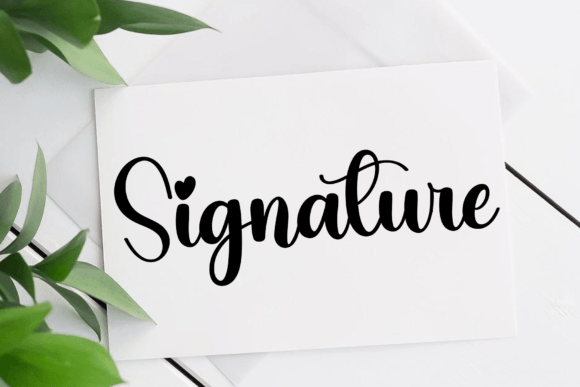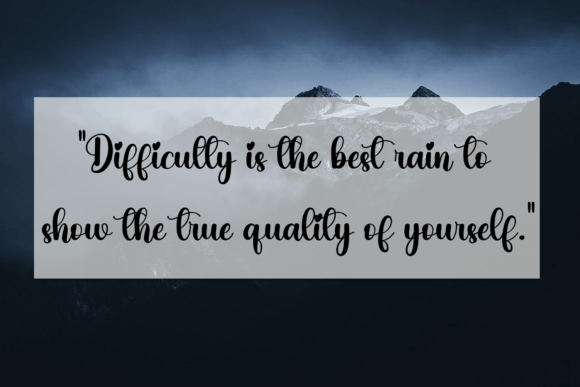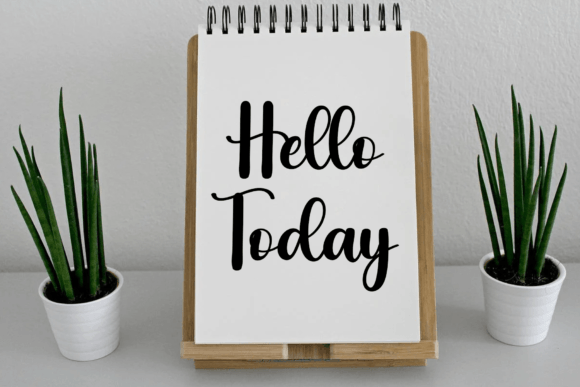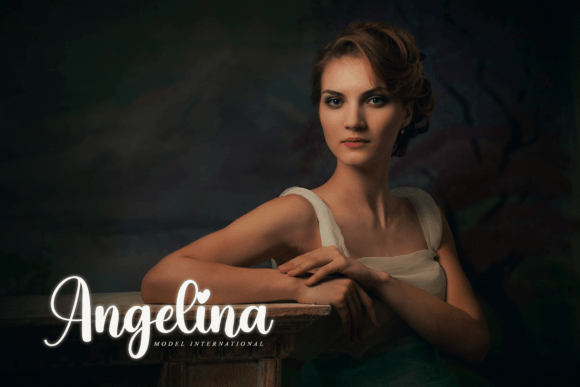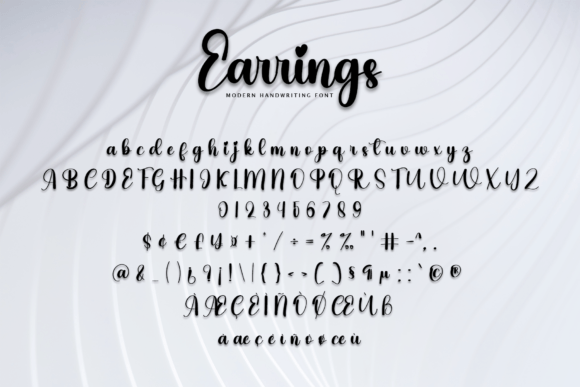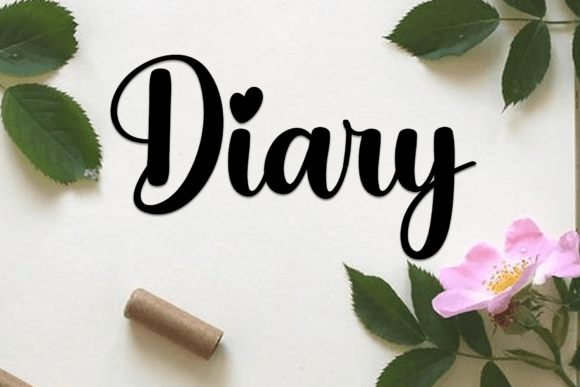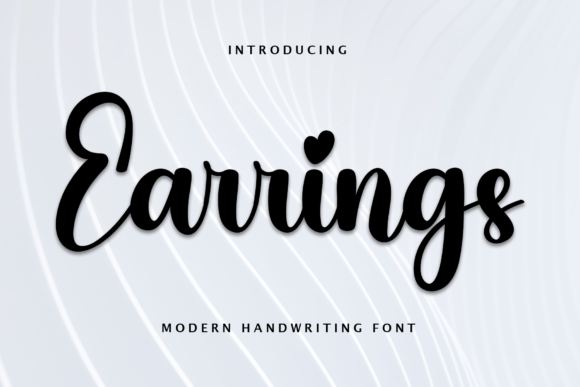
Earrings Font: A Unique and Versatile Handwritten Font for Creative Projects
Are you a designer or crafter looking for a font that can add a touch of elegance and sophistication to your creative projects? Look no further than Earrings Font, a unique and versatile handwritten font that is perfect for a wide range of applications. In this article, we’ll take a closer look at Earrings Font, its features, and how you can use it to elevate your designs.
What is Earrings Font?
Earrings Font is a carefully crafted, round lettered handwritten font that is designed to produce high-quality results. Its unique and elegant design makes it perfect for use in titles, invitations, letters, and many other types of products. Whether you’re working on a branding project, creating wedding stationery, or designing a craft project, Earrings Font is a great choice.
Features of Earrings Font
Earrings Font has several features that make it stand out from other fonts. Some of its key features include:
- Unique and elegant design: Earrings Font has a distinctive, hand-drawn look that is both elegant and sophisticated.
- Round lettered: The font features round letters that give it a soft and feminine touch.
- Handwritten: Earrings Font has a handwritten feel that makes it perfect for use in creative projects.
- Versatile: The font can be used in a wide range of applications, from titles and invitations to letters and craft projects.
How to Use Earrings Font
Earrings Font is easy to use and can be incorporated into a wide range of creative projects. Here are some ideas for using Earrings Font:
- Titles and headings: Use Earrings Font to create eye-catching titles and headings for your projects.
- Invitations: Earrings Font is perfect for use in wedding invitations, birthday invitations, and other types of party invitations.
- Letters and cards: Use Earrings Font to add a touch of elegance to your letters and cards.
- Craft projects: Earrings Font can be used in a wide range of craft projects, from scrapbooking to card making.
Benefits of Using Earrings Font
There are many benefits to using Earrings Font in your creative projects. Some of the benefits include:
- Elegant and sophisticated look: Earrings Font adds a touch of elegance and sophistication to your projects.
- Unique and distinctive: The font’s unique design makes it stand out from other fonts.
- Versatile: Earrings Font can be used in a wide range of applications.
Tips for Using Earrings Font
Here are some tips for using Earrings Font in your creative projects:
- Use it sparingly: Earrings Font is a bold font, so use it sparingly to avoid overwhelming your design.
- Pair it with other fonts: Earrings Font looks great when paired with other fonts, so experiment with different combinations.
- Experiment with colors: Earrings Font looks great in a wide range of colors, so experiment with different colors to find the one that works best for your project.
Earrings Font is a unique and versatile handwritten font that is perfect for designers and crafters looking to add a touch of elegance and sophistication to their creative projects. With its elegant design, round letters, and handwritten feel, Earrings Font is a great choice for a wide range of applications. Whether you’re working on a branding project, creating wedding stationery, or designing a craft project, Earrings Font is a great choice.